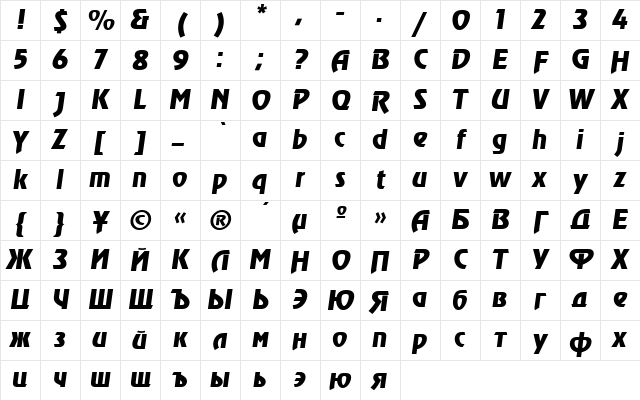
AGRevueCyr Italic
Design Context for AGRevueCyr
AGRevueCyr is a composed and adaptable typeface that performs quietly and consistently across a wide range of design contexts. The slanted form adds forward momentum and visual energy.
Pro Tip: Use AGRevueCyr for emphasis, pull quotes, and subheadings where its slanted energy can add rhythm to the layout.